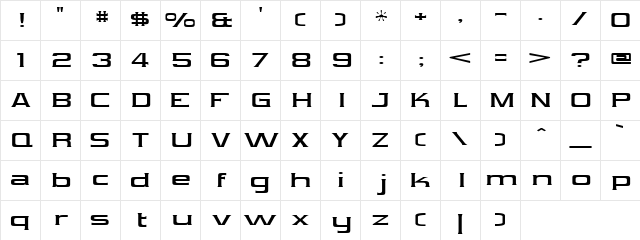
Vibrocentric Regular Free Font
Vibrocentric Regular
Complete Vibrocentric Regular glyph index. Displaying only characters natively supported by Vibrocentric Regular font.
Design Context for Vibrocentric
Vibrocentric is a composed and adaptable typeface that performs quietly and consistently across a wide range of design contexts.
Pro Tip: Use Vibrocentric in both headline and body roles to test its range before committing to a single application.